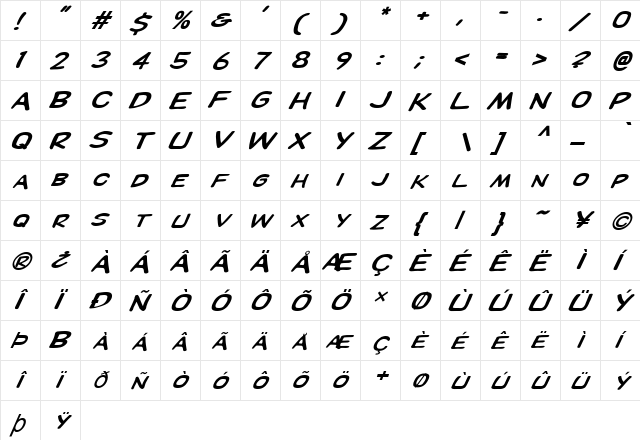
FZ BASIC 28 ITALIC Normal
FZ BASIC 28 ITALIC offers clean, dependable letterforms without strong stylistic allegiance, making it a practical choice for designers who need flexibility. The slanted form adds forward momentum and visual energy.
Pro Tip: Use FZ BASIC 28 ITALIC for emphasis, pull quotes, and subheadings where its slanted energy can add rhythm to the layout.